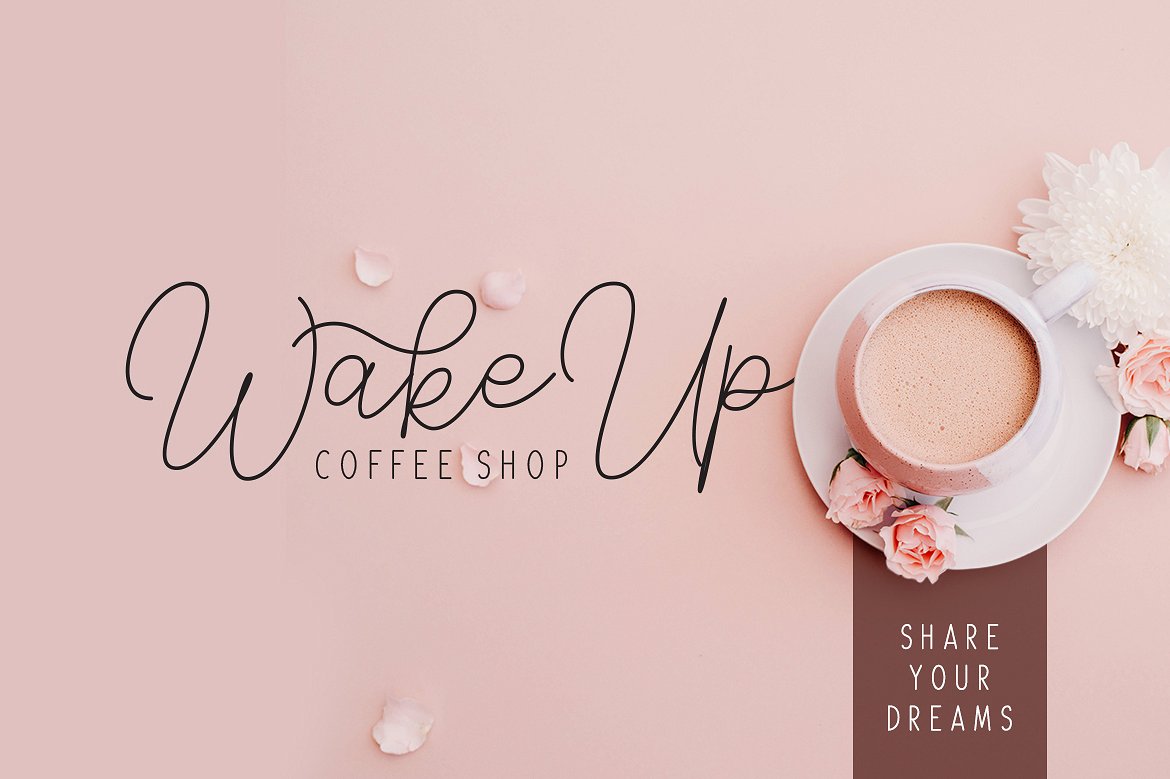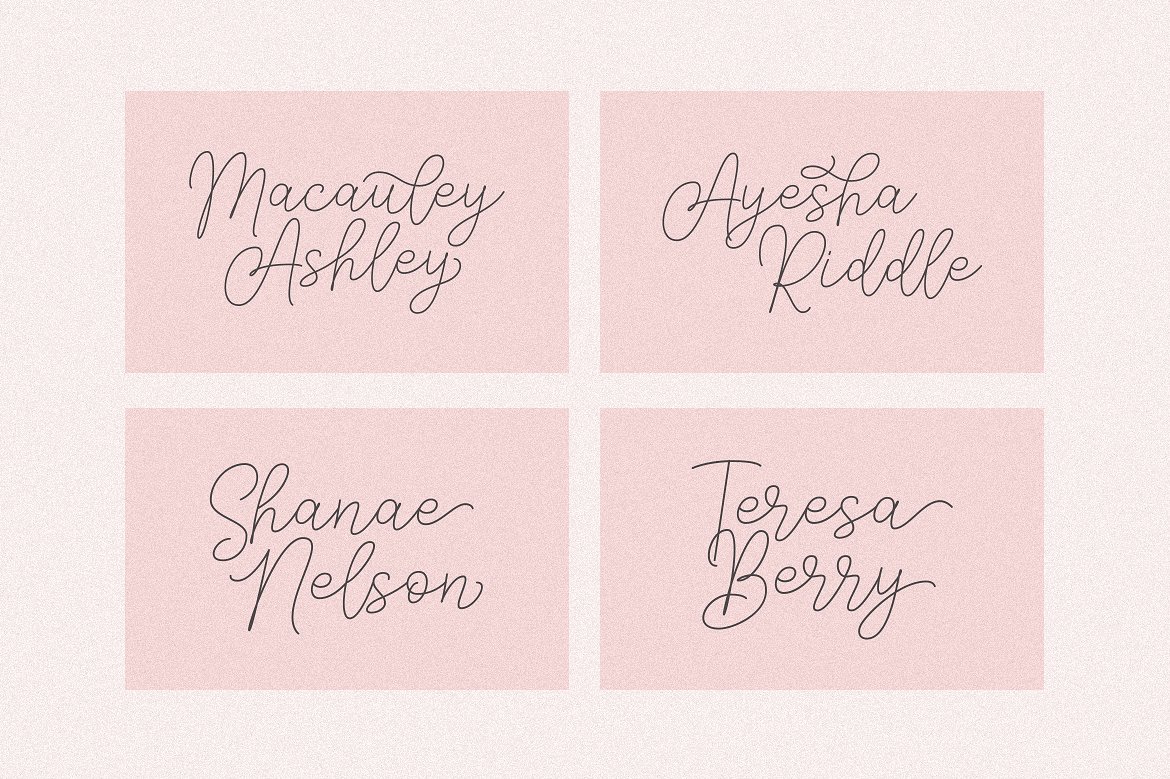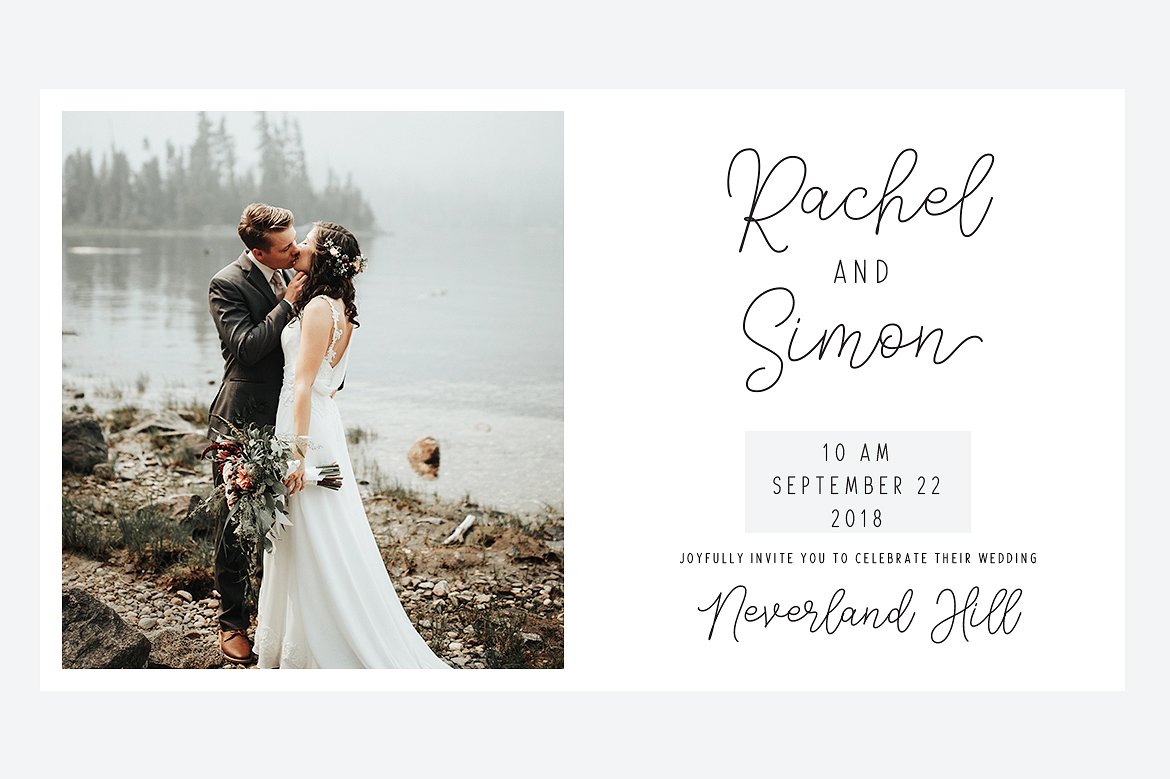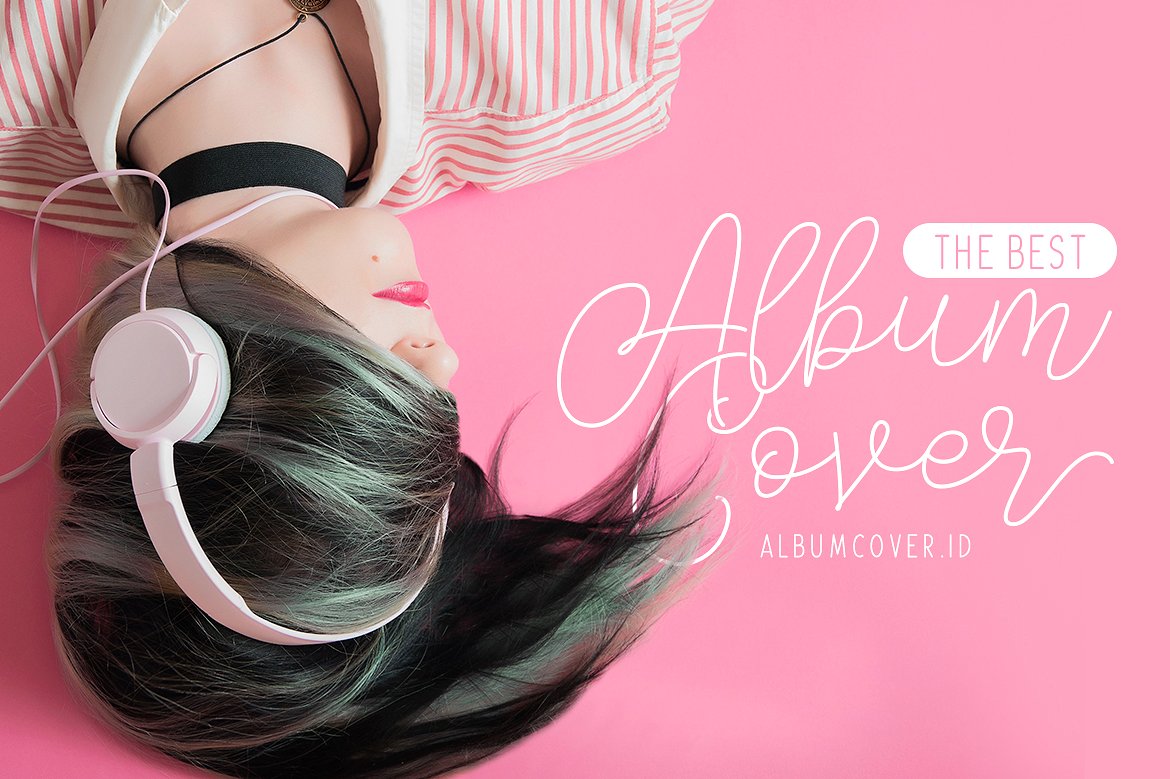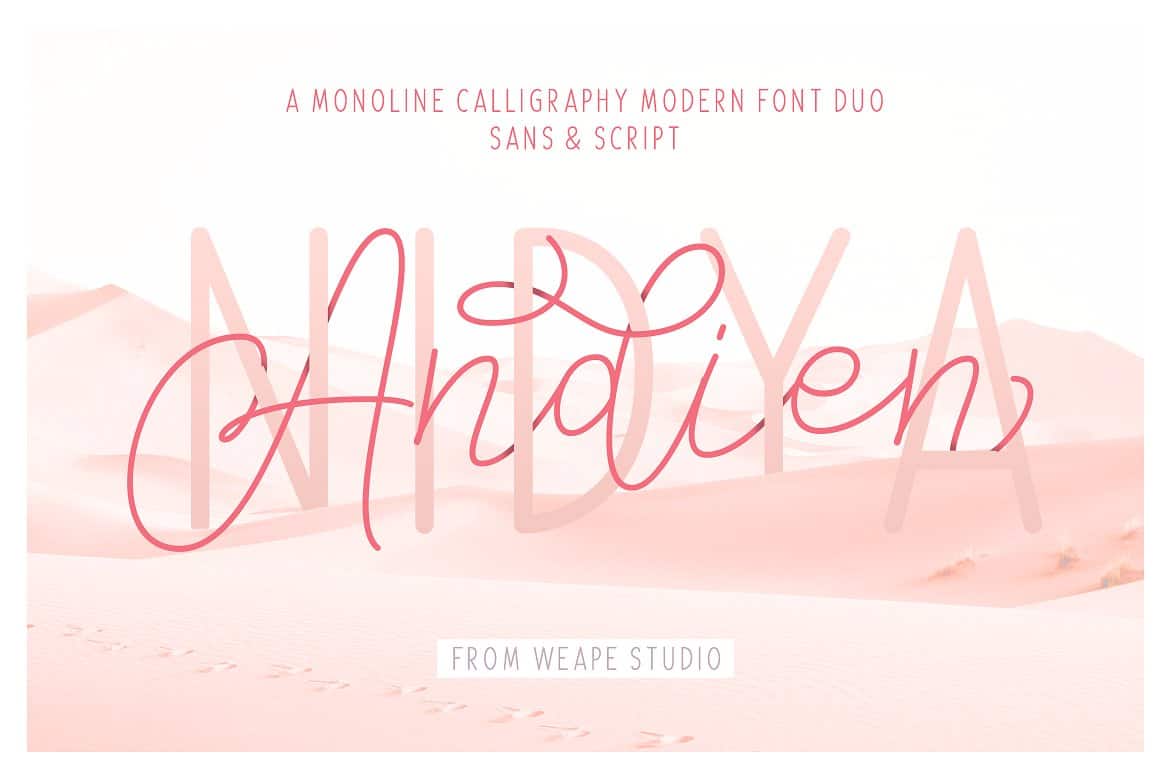
Andien Nidya Script Font
Hey there! This is a modern serif and script font duo. Designed and shared by Weape Design, a script font, that trial version is Andien Nidya Font. Andien Nidya a monoline calligraphy modern font duo. With consisting of a sophisticated monoline signature-style script and sans serif.
Andien Nidya – Script & Sans is perfect for adding a classy, modern touch to your projects. Easy to use for your design projects, including logos & branding, wedding designs, social media posts, advertisements & product designs.